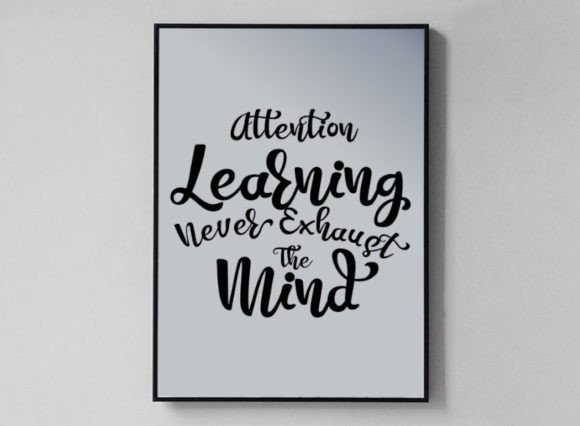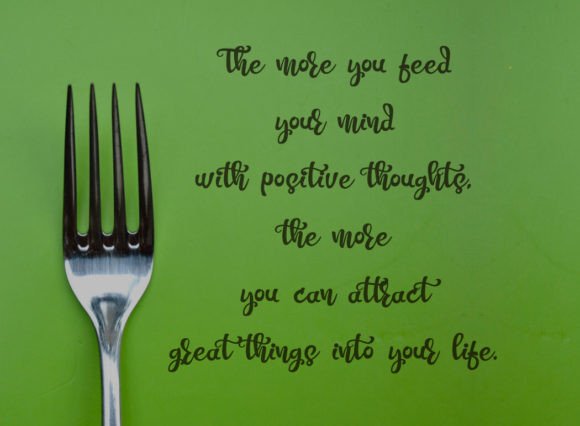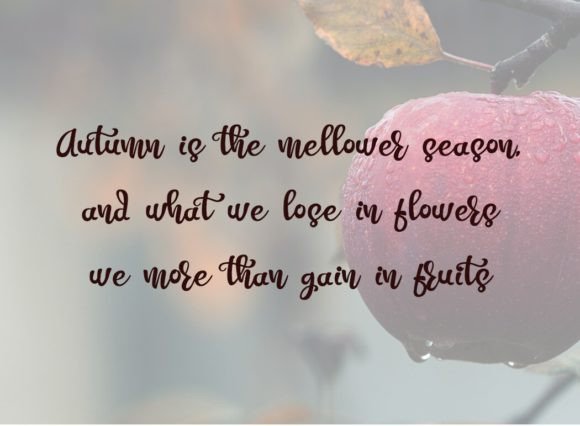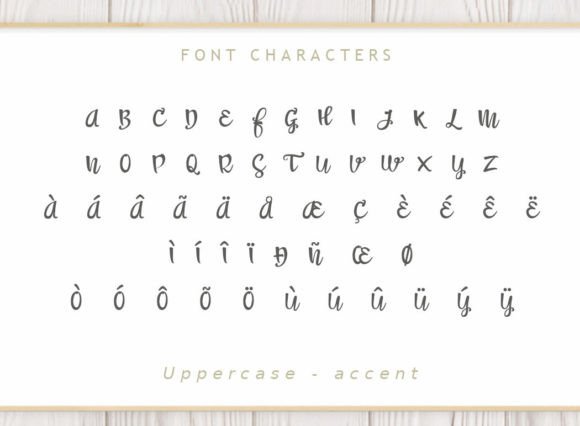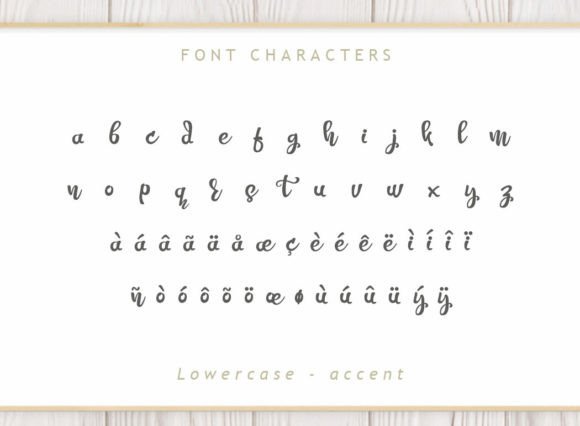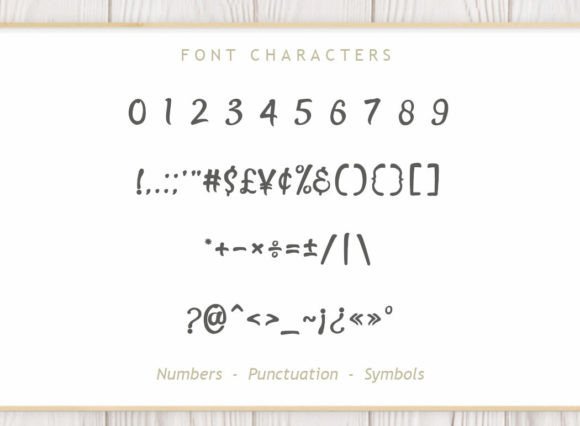
Introduction to Meytanio Font
Meytanio is a beautiful bold script font with fun and fresh characters.
Enriched with alternate and ligature characters to provide the best typographic for your amazing projects Suitable for wedding shirt designs, signs, quotes, headers and many more.
Key Features of Meytanio Font